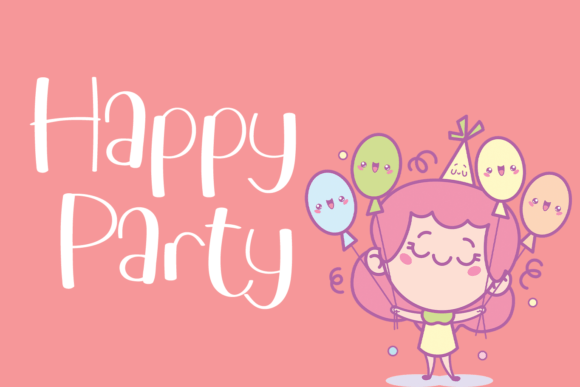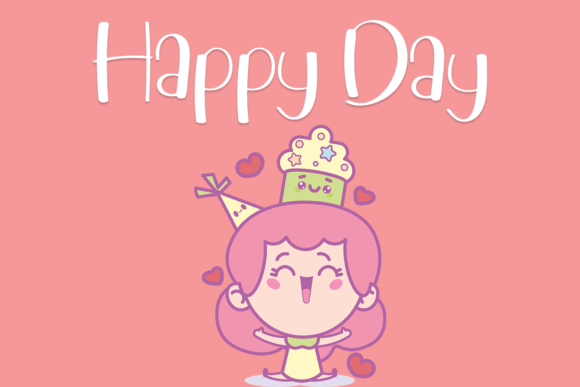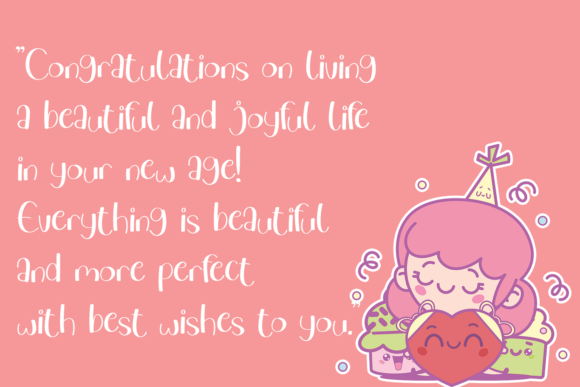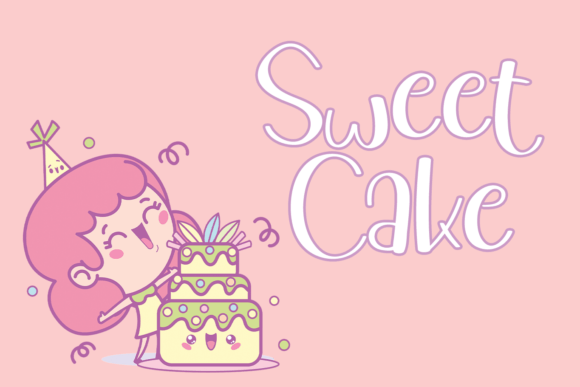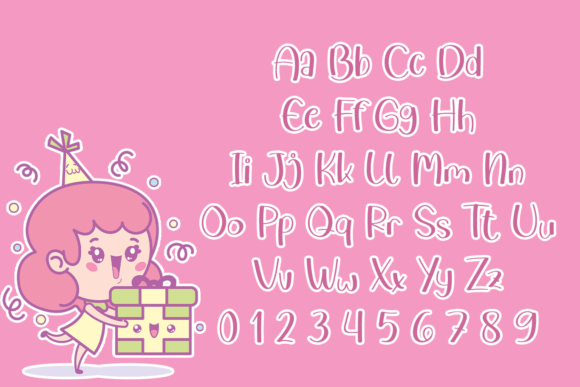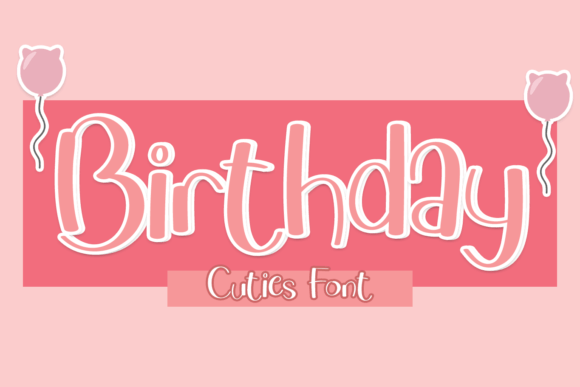
Introducing Birthday Font: The Quirky and Chic Lettered Display Font
Are you tired of using the same old fonts for your creative projects? Look no further! Birthday Font is a unique and stylish lettered display font that can add a touch of personality to any design. With its quirky and chic aesthetic, this font is perfect for designers and crafters looking to make their projects stand out.
What is Birthday Font?
Birthday Font is a lettered display font that features a distinctive and eye-catching design. Its quirky and chic style makes it perfect for a wide range of projects, from birthday cards and invitations to posters, flyers, and social media graphics. The font is highly versatile and can be used in various contexts, from formal to informal, making it a great addition to any designer’s toolkit.
• Unique and Quirky Design: Birthday Font features a one-of-a-kind design that is sure to grab attention. Its quirky style makes it perfect for projects that require a touch of personality.
• Highly Versatile: This font can be used in a wide range of projects, from digital designs to print materials. Its versatility makes it a great investment for designers and crafters.
• Easy to Read: Despite its quirky design, Birthday Font is easy to read, making it perfect for headlines, titles, and short paragraphs.
How to Use Birthday Font in Your Designs
Birthday Font can be used in a variety of ways to add a touch of personality to your designs. Here are a few ideas to get you started:
• Birthday Cards and Invitations: Use Birthday Font to create unique and eye-catching birthday cards and invitations that are sure to impress.
• Social Media Graphics: Add a touch of personality to your social media graphics, such as Facebook posts, Instagram stories, and Twitter headers, with Birthday Font.
• Posters and Flyers: Use Birthday Font to create eye-catching posters and flyers for events, promotions, and sales.
• Crafting Projects: Birthday Font can also be used in various crafting projects, such as scrapbooking, journaling, and card making.
Tips for Getting the Most Out of Birthday Font
Here are a few tips to help you get the most out of Birthday Font:
• Experiment with Different Colors: Birthday Font looks great in a variety of colors. Experiment with different colors to find the one that works best for your design.
• Use it in Combination with Other Fonts: Birthday Font can be used in combination with other fonts to create a unique and eye-catching design.
• Pay Attention to Font Size: Make sure to adjust the font size according to the context in which you’re using it. A larger font size can be used for headlines, while a smaller font size can be used for body text.
Birthday Font is a quirky and chic lettered display font that can add a touch of personality to any design. Its highly versatile design makes it perfect for a wide range of projects, from digital designs to print materials. With its unique and eye-catching design, Birthday Font is sure to make your projects stand out. So why wait? Add Birthday Font to your creative toolkit today and start creating stunning designs that are sure to impress!